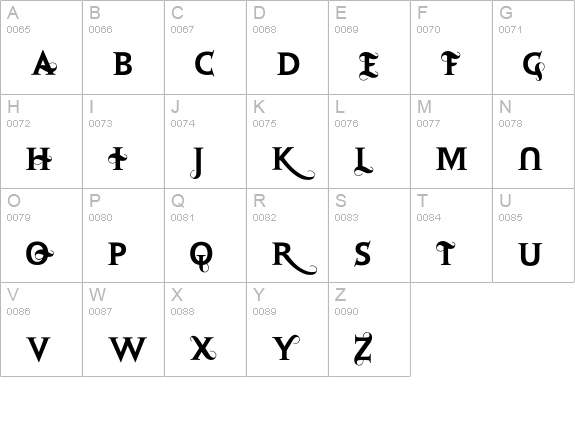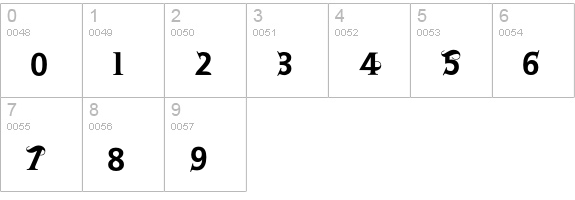
RetoricAlternate Font Details
Introducing RetoricAlternate, a captivating font that effortlessly combines elegance and modernity. With its intricate letterforms and unique strokes, this font is sure to make a lasting impression on any design project. RetoricAlternate exudes a sense of sophistication and versatility, making it perfect for a wide range of applications. Whether you're designing a logo, creating stunning headlines, or crafting eye-catching posters, this font has the power to elevate your designs to new heights. But what sets RetoricAlternate apart from other fonts is its accessibility. This font is free, allowing designers of all levels to easily incorporate it into their projects without breaking the bank. It's freely available to download at FontsMarket.com, ensuring that you can start using it right away and experience the magic of RetoricAlternate firsthand. Crafted with meticulous attention to detail, RetoricAlternate offers a wide range of characters and ligatures, enabling you to create truly unique and captivating designs. Its smooth curves and balanced proportions provide a harmonious visual experience, while its bold presence demands attention. Whether you're a seasoned designer or just starting out, RetoricAlternate is a font that will elevate your creativity and help you stand out from the crowd. Don't miss out on this incredible opportunity to download this free font at FontsMarket.com, and let RetoricAlternate take your designs to the next level.